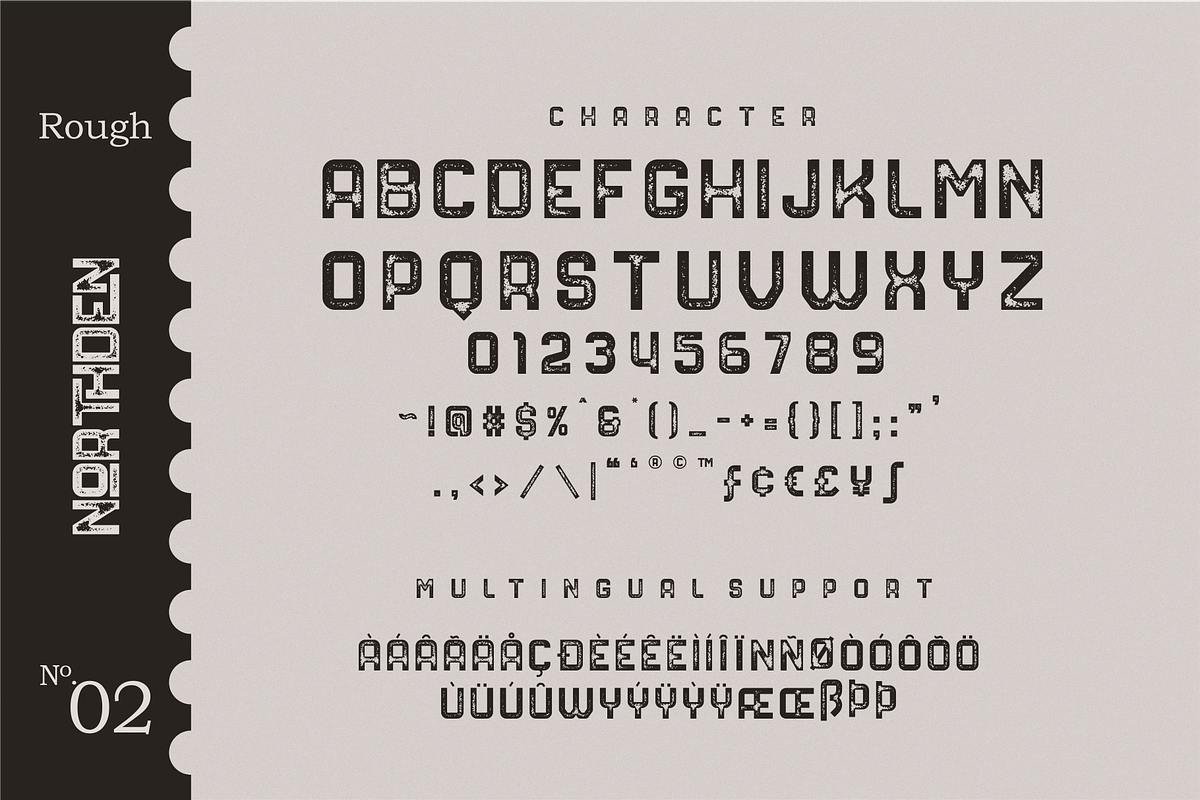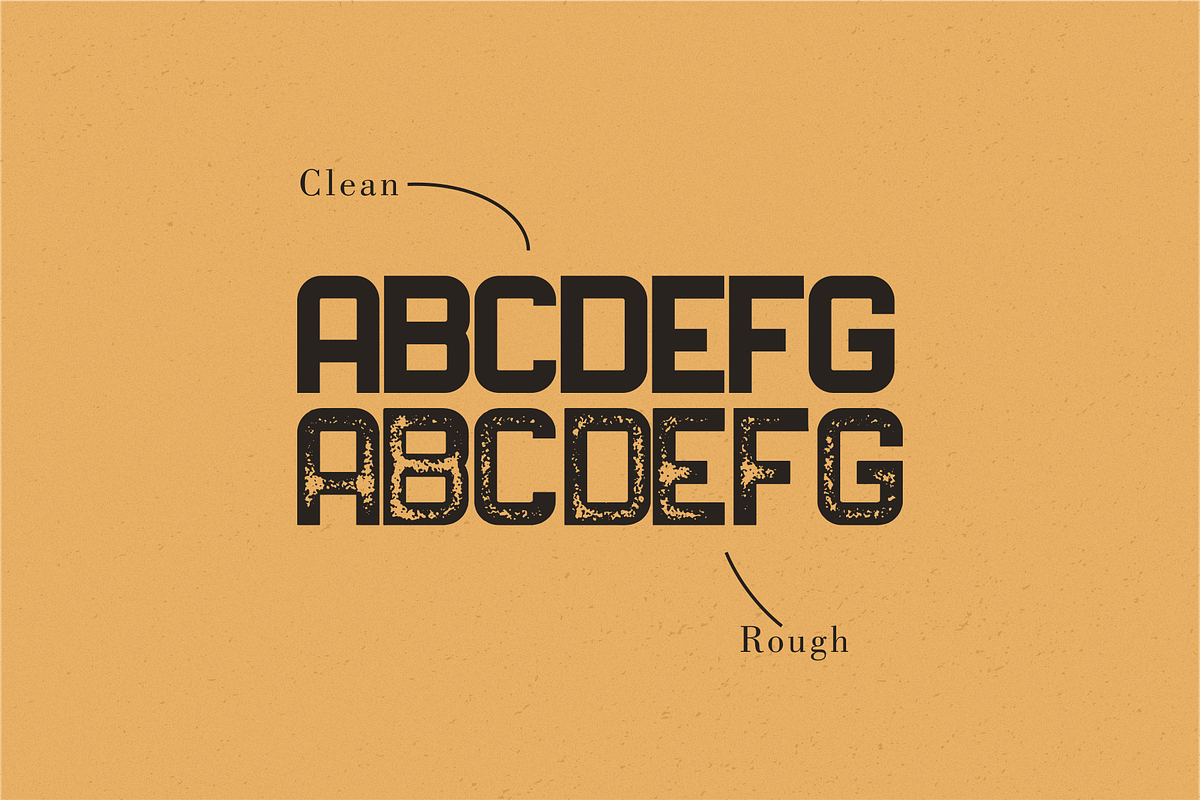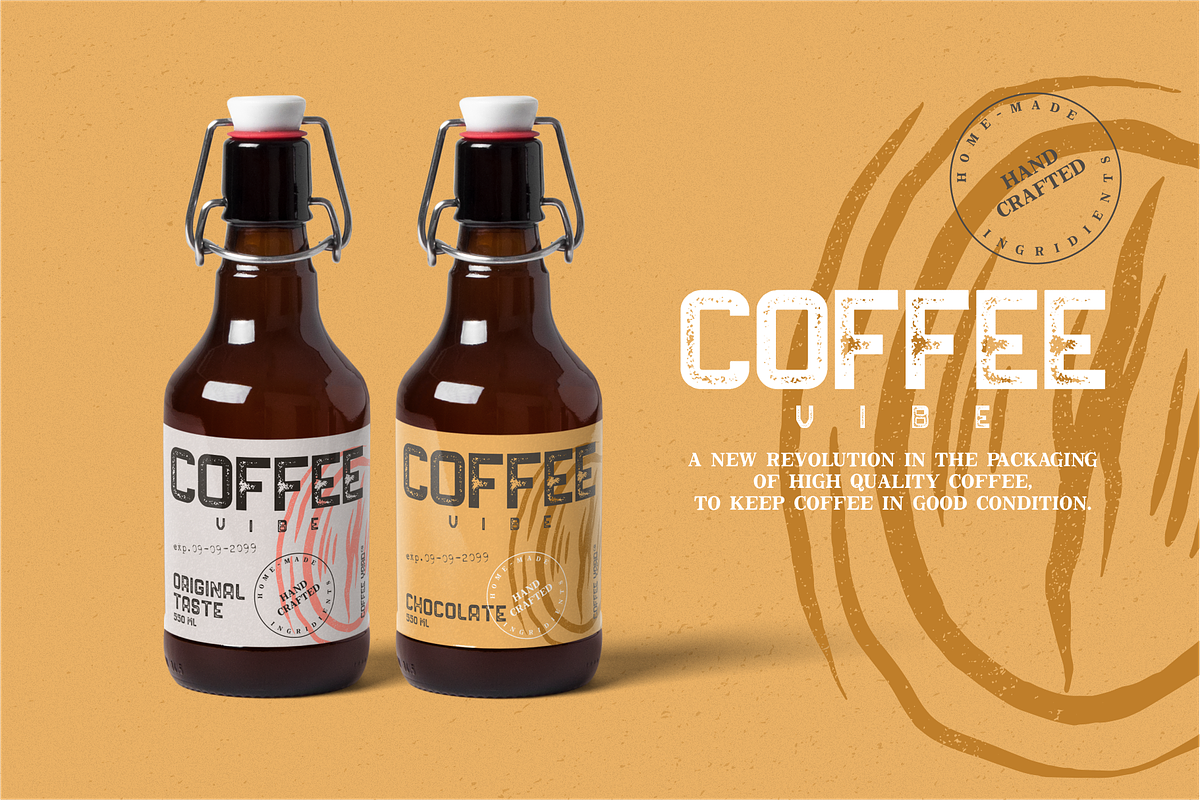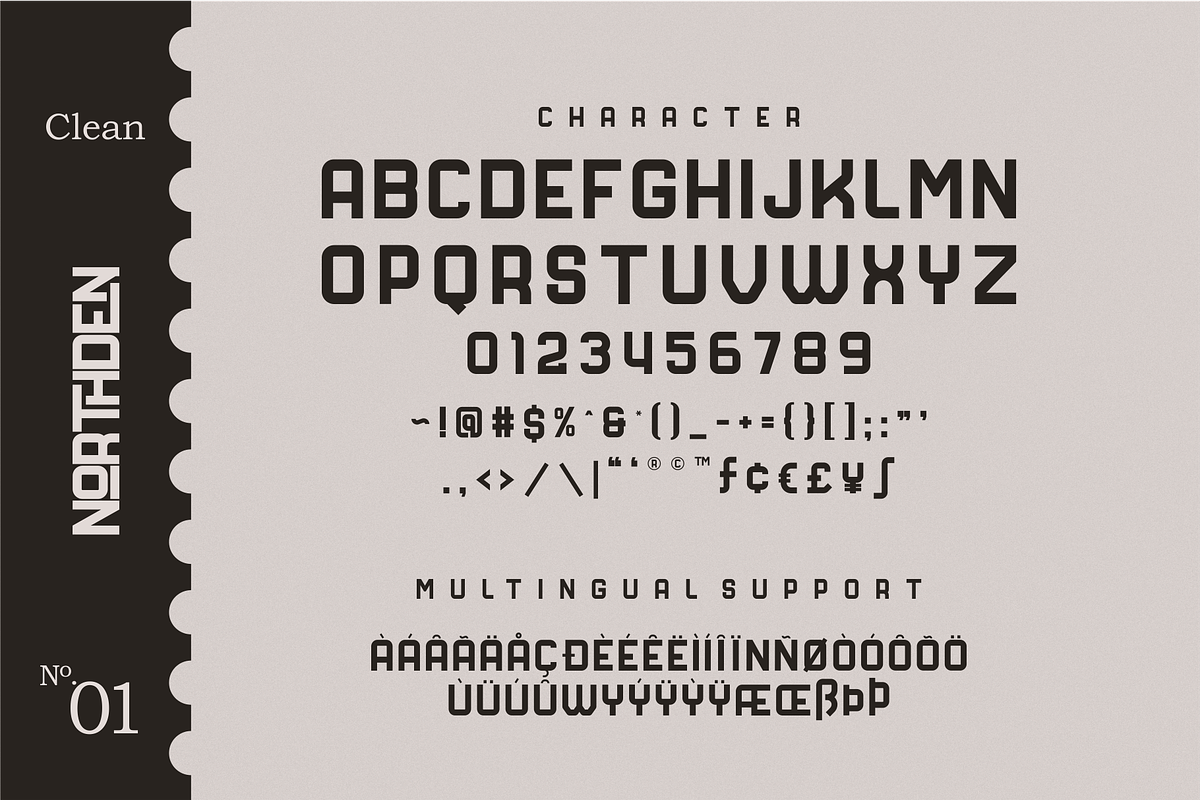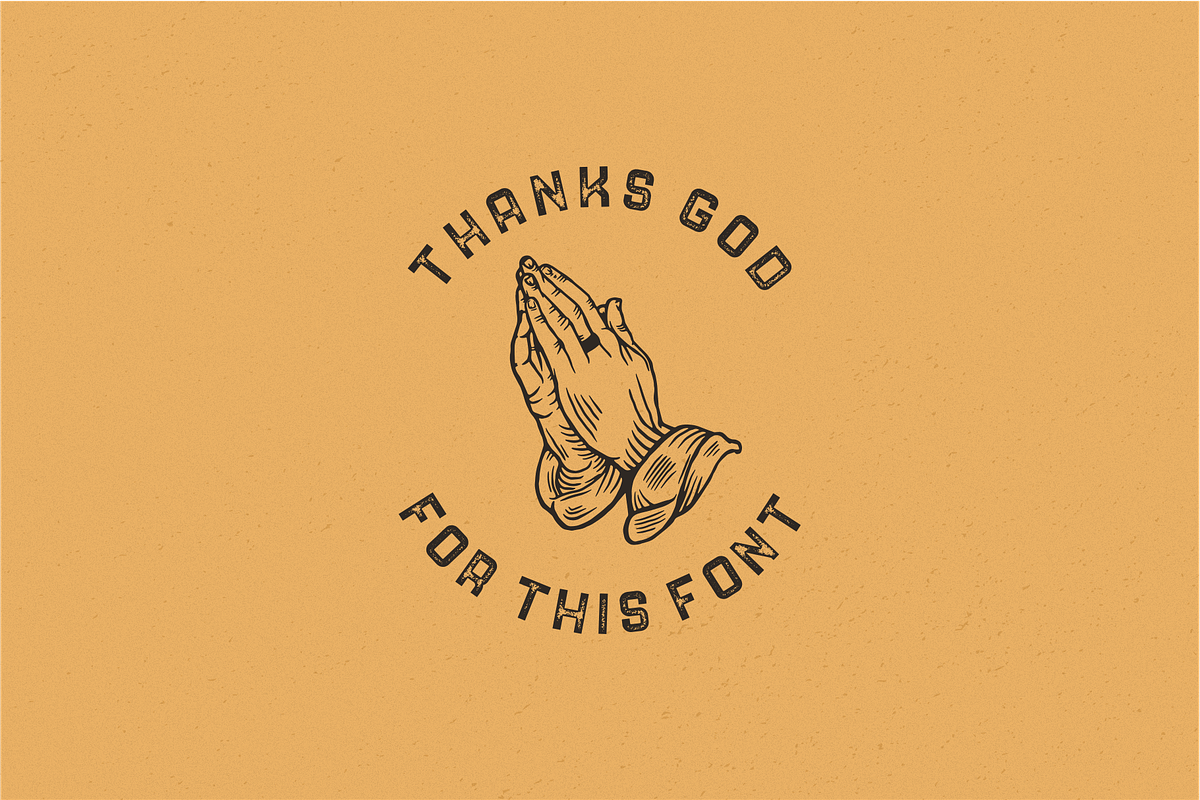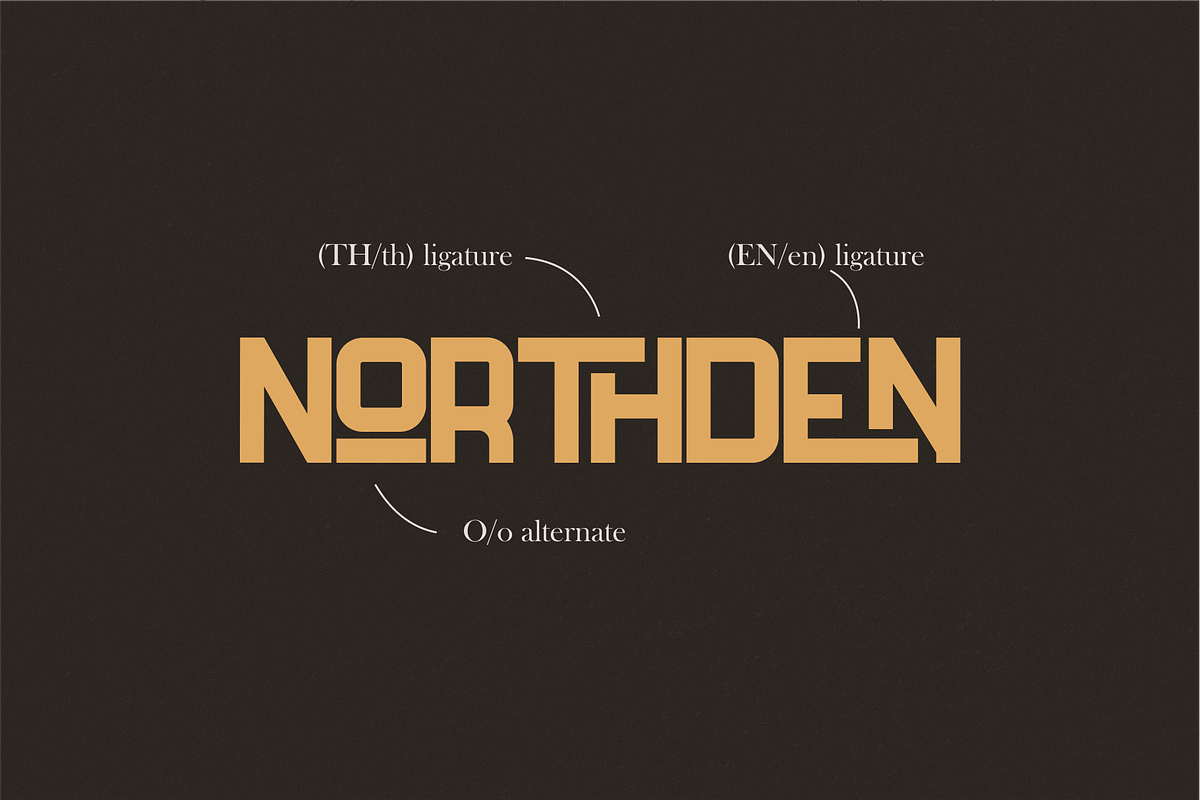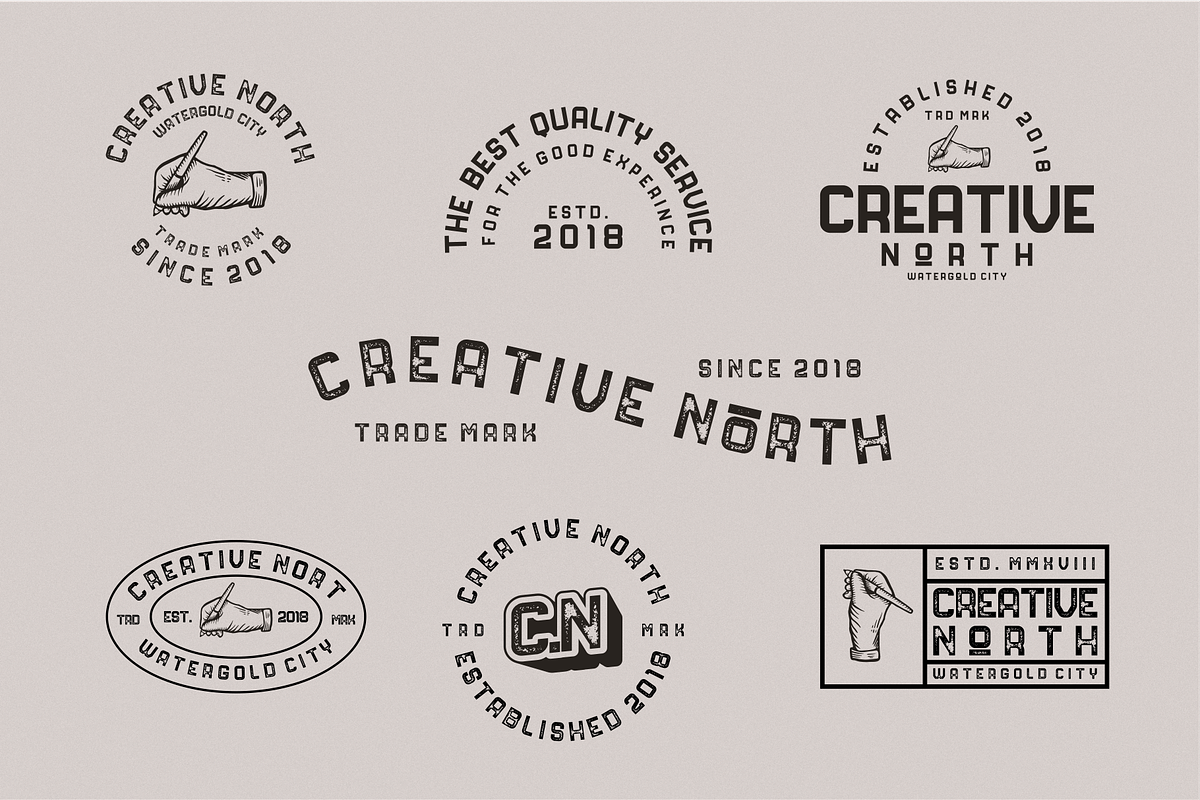
Northden Font Industries
Northden is a typeface font with a masculine style that is suitable for your design needs that need a classic, vintage touch, but still modern. This font is perfect, for any logo, product label, poster or design. This font is available in 2 styles, clean and rugged, available in OTF and TTF formats. As well as supporting multilingual languages ...
Uppercase & Lowercase,
Punctuation & Number,
Alternate & 15+ Ligatures
Uppercase Characters Lowercase Characters Support of foreign languages: ÀÁÂÃÄÅÆÇÈÉÊËÌÍÎÏÐÑÒÓÔÕÖØÙÚÛÜÝ
Northden Font Industries by 24Design Studios fits naturally into Branding, posters, packaging, typography.